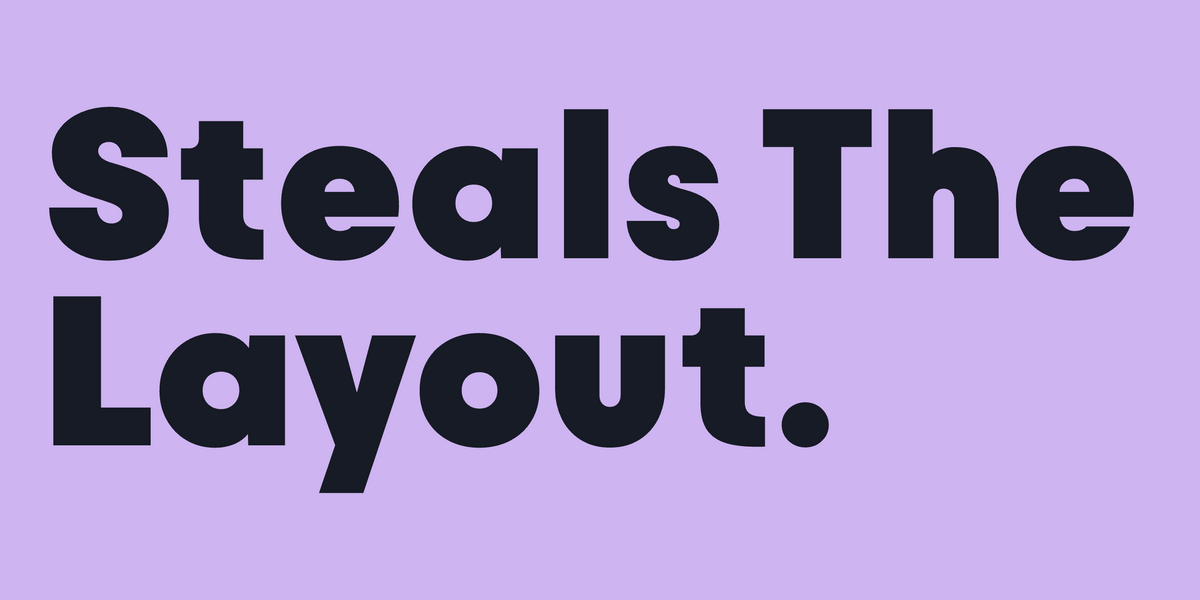
Display type is type at its most expressive. When a headline becomes the visual rather than the caption to one, the font choice carries the brand. These ten Mojomox fonts are tuned for that moment. Some are quiet and editorial, some are loud and architectural, some are warm and considered. All hold up at large sizes where every curve gets scrutinized.
1. Swav
Wavy futuristic display font with fluid letterforms. Reads forward-looking and confident at hero size. Strong for fashion, music, and editorial covers.
2. Saltz
Sharp condensed serif for editorial titling. Distinctive proportions at display, legible at smaller sizes. A go-to for fashion and beauty editorial work.
3. Aezra
Sharp narrow serif with long terminals. The condensed proportions and detailed terminals give Aezra real personality at large sizes.
4. Ques
Wide elegant contrast serif-style typeface. The wide proportions and refined strokes give it editorial confidence at display sizes.
5. Roma
Modern elegant sans-serif contrast typeface. The contrast gives display weight while the humanist base keeps it warm. Strong for editorial and fashion work.
6. Auria Sans
Modern sans-serif with soft inner corners. Holds up beautifully as a display headline while still feeling current rather than dramatic.
7. Apex
Bold pointy sans-serif with sharp alternates. A display workhorse for hero headlines, billboards, and packaging where presence matters.
8. Cesty
Friendly rounded display font with 70s influence. The warm proportions and soft corners read confident without aggression. Strong for food, hospitality, and lifestyle.
9. Bauhaus Geo
Geometric display font stripped to essentials. Calm authority at large sizes. The display pick when a brand wants structure rather than expression.
10. Mod
Modern serif with elegant proportions. Confident strokes without being dramatic. Use it where you want display sophistication that does not announce itself.
Display vs text: matching the font to the job
Display fonts are tuned for large sizes (24pt and up). Their proportions, contrast, and details are designed to be looked at, not read in long passages. Match them to body type that reads quickly. The Mojomox catalog includes sans-serif and serif body fonts (Vole, Roma, Auria Sans, Mod) that pair cleanly with any of the display picks above.